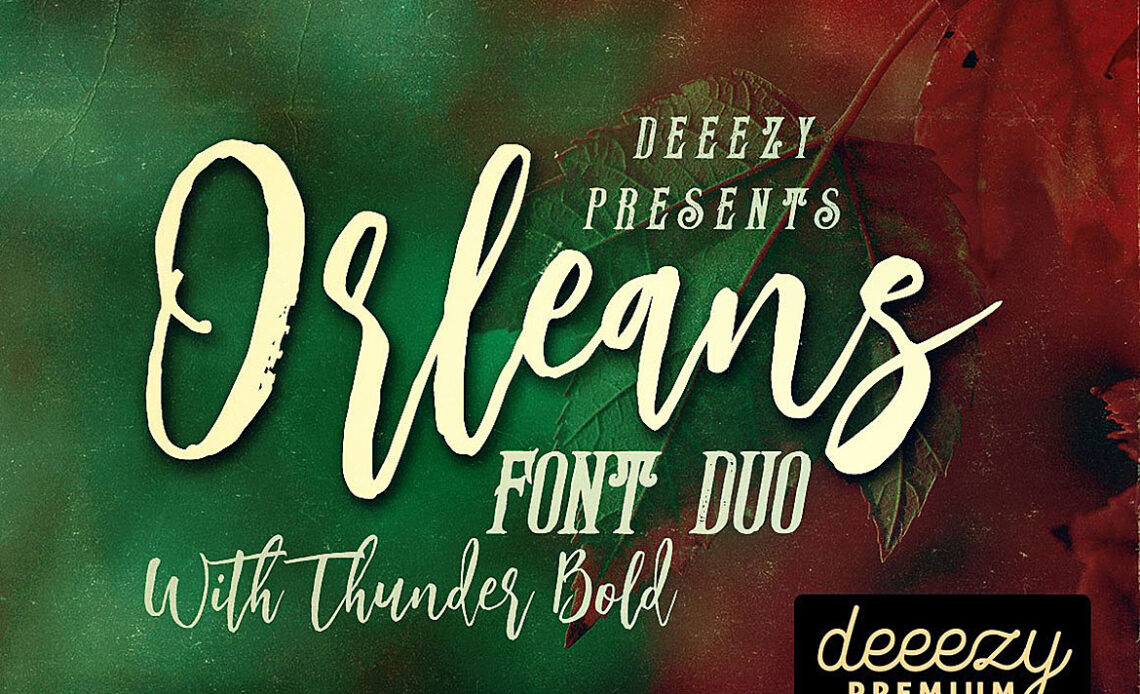
Orleans Script Font Duo Font
Introducing the Orleans Script Font Duo - a captivating collection of fonts designed to elevate your projects and unleash your creativity. Created by the talented team at JumboDesign, this font duo is the perfect choice for those seeking a cool and creative style that is sure to make a lasting impression.
The highlight of this collection is the first font, a mesmerizing handdrawn brush style script font. With its modern and edgy vibe, it adds a touch of uniqueness to any design. But that's not all - this font also offers multi-language support, ensuring that you can communicate your message effectively to a global audience. Plus, it comes with an abundance of stylistic alternates, allowing you to experiment and create endless variations.
But the excitement doesn't stop there. The Orleans Script Font Duo also includes a condensed serif display font as the second option. This font brings a touch of sophistication to your projects, making it perfect for headlines, logos, and branding materials. With its regular and grunge versions, you can choose between a sleek and polished look or a more rugged, worn-out style.
Whether you're a graphic designer, a blogger, or a business owner, this font duo is a must-have in your toolkit. It offers versatility and flexibility, allowing you to create stunning visuals for various purposes. From social media graphics to product packaging, the Orleans Script Font Duo has got you covered.
But what sets this font duo apart is its ability to evoke emotions and capture attention. Imagine the impact of using this font on your next project. Picture the intrigue and curiosity it will generate among your audience. With its unique style and attention-grabbing appeal, the Orleans Script Font Duo will make your designs stand out from the crowd.